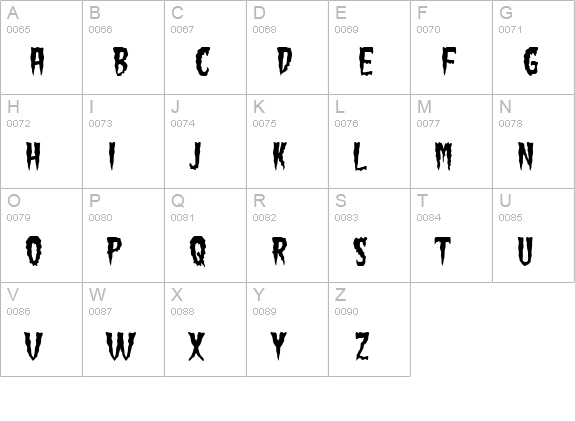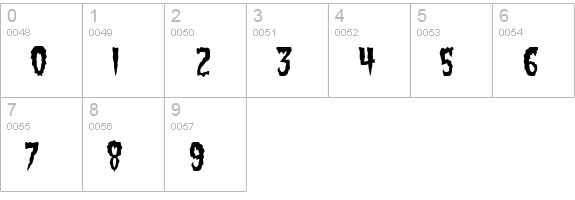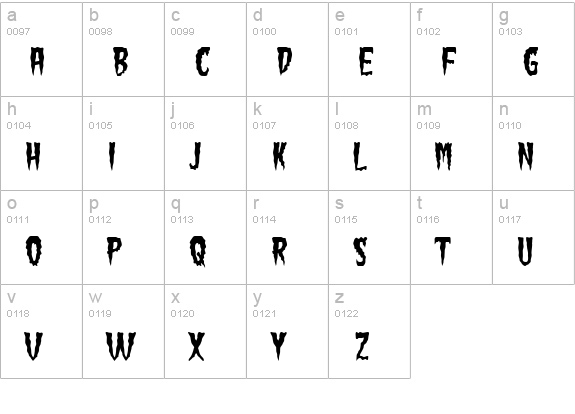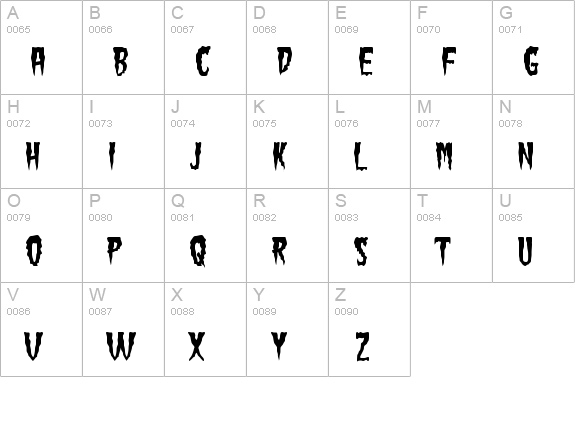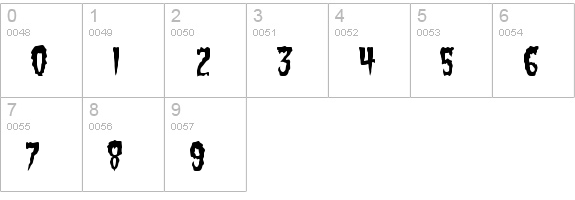
Green Fuz font is a whimsical and playful typeface that brings a unique charm to any design project. With its quirky shapes and organic lines, Green Fuz is perfect for adding a touch of personality to posters, logos, and branding materials. This font exudes a sense of fun and creativity, making it ideal for projects that require a lighthearted and friendly vibe. The best part? Green Fuz font is completely free for personal and commercial use. You can freely download this font at FontsMarket.com and start using it in your projects right away. So why wait? Add a splash of fun to your designs with Green Fuz font today!